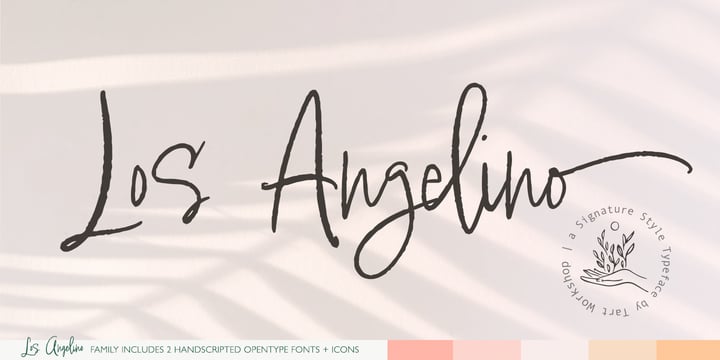
Los Angelino, is a stylish modern calligraphy script with lots of personality. Beautiful Opentype features with lovely standard ligatures automatically replicate the quirks of real handwriting. Easily personalize Los Angelino's appearance by utilizing it's many alternative glyphs, 48 ligatures and swashes. Includes stylistics sets, fractions & ordinals. This typeface is a natural for casual lifestyle branding, logos, stationery and product designs looking for a dynamic personal vibe.
Additionally included in the family, Los Angelino Mystic Healer Icons.
Perfect for: elegant branding, wedding stationery, stylish book covers, albums, handwritten quotes, cards, unique social media posts, and so much more.